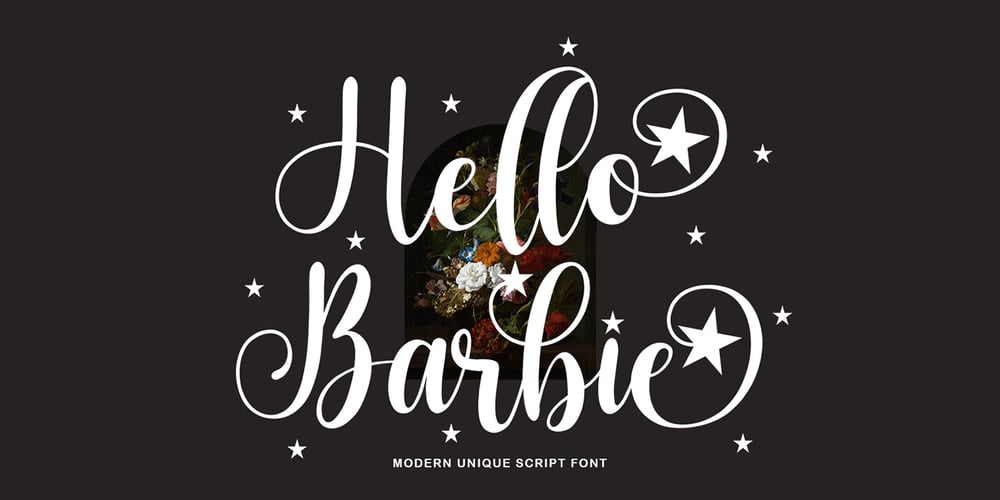
Hello Barbie Font Family was designed by Mu Fazzal and published by Bosstypestudio. Hello Barbie contains 1 styles and family package options. Hello Barbie is a script type family of four fonts. It is inspired by Lovely Fonts and has a soft and welcoming look. Hello Barbie can be used for branding, packaging and wherever you need a script font that is easy to read and smooth. Hello Barbie has many ties, strokes, and alternative characters that will make your designs unique and beautiful.